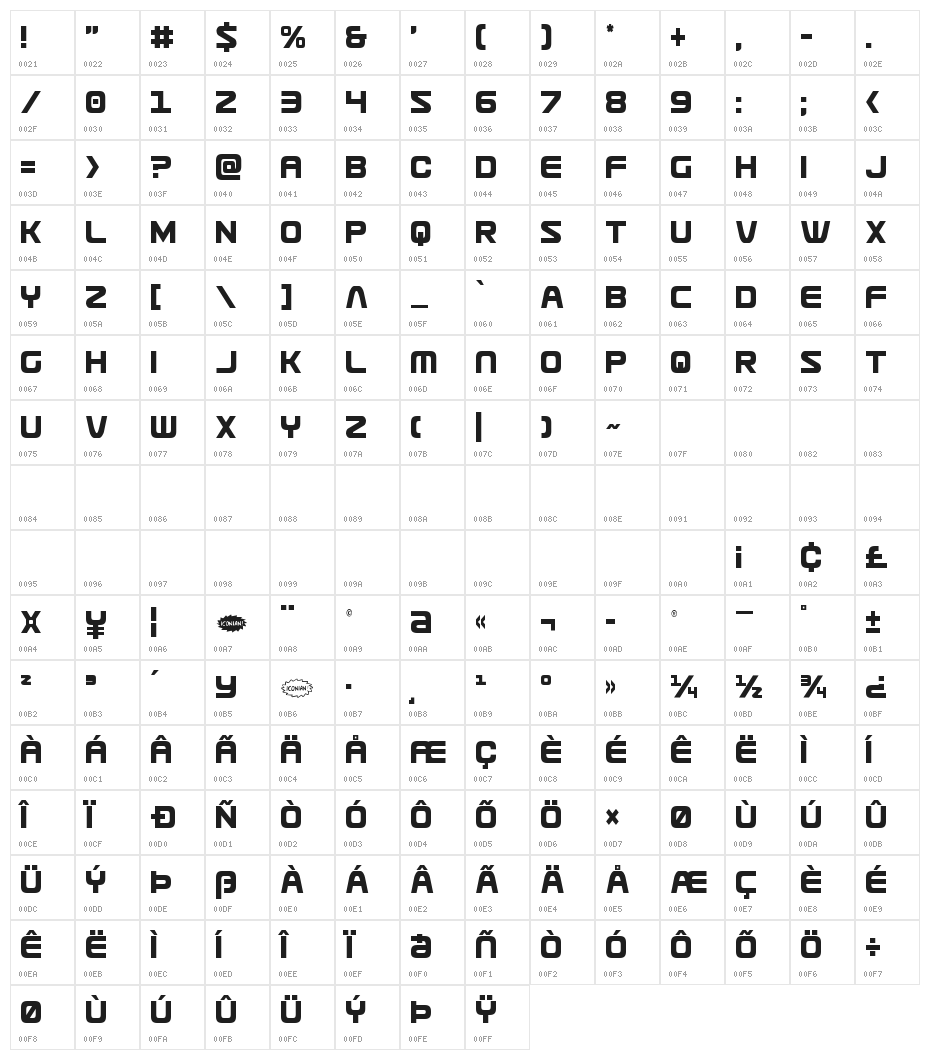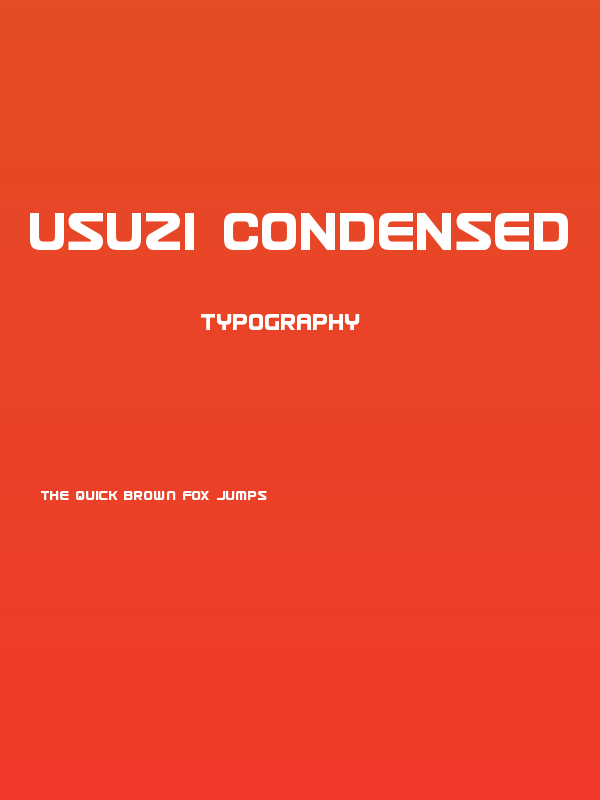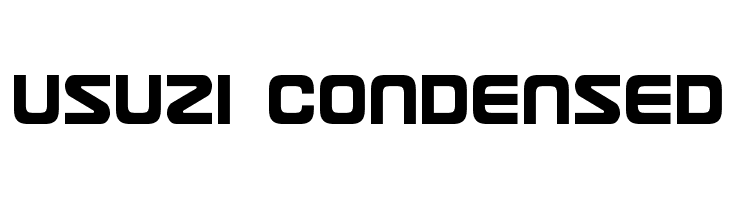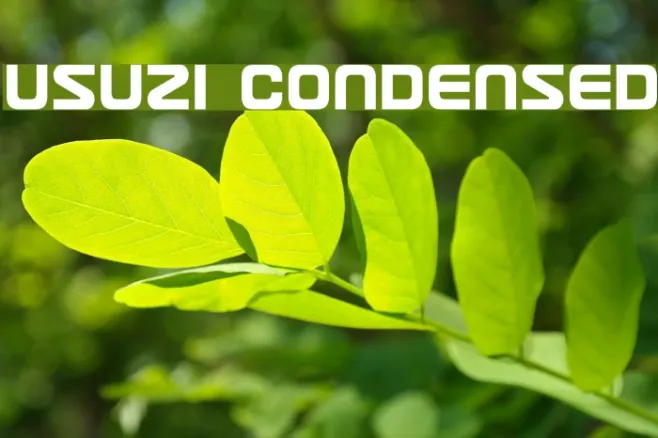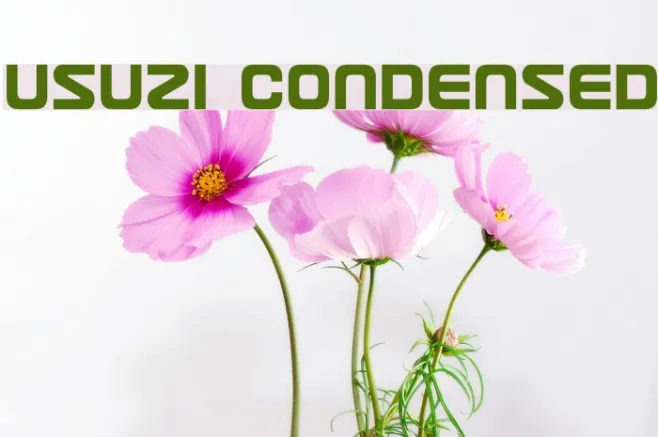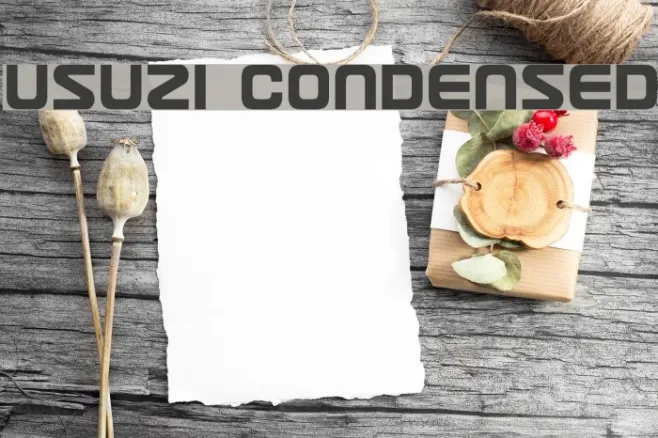
Usuzi Condensed Font
Usuzi Condensed Description
This font features a bold and modern design with a distinct geometric structure. The characters are condensed, giving it a compact appearance that is both striking and efficient in space usage. The uppercase letters have a uniform height, while the lowercase letters maintain a consistent style, ensuring readability. The numbers are clear and bold, matching the overall aesthetic of the font. Special characters are well-defined, adding versatility for various design needs. The font's clean lines and sharp angles make it suitable for contemporary projects.
| Proposed Projects | Ideal for branding, advertising, posters, and any project requiring a modern and impactful typeface. |